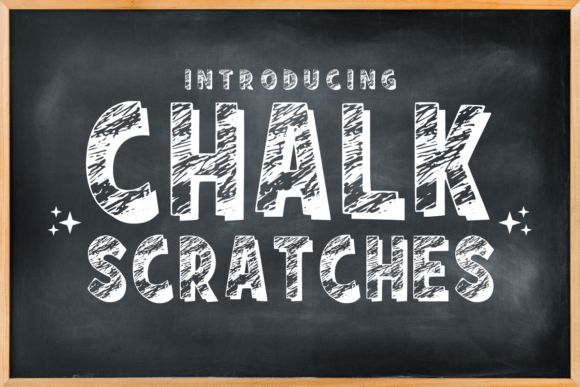
Unleash Your Creativity with the Chalk Scratches Font
Remember those carefree summer days spent scribbling on the blackboard with chalk? The sound of the chalk scratching against the surface, the smell of the dust, and the satisfaction of creating something new and temporary. It’s a feeling that many designers will nostalgically recall when they discover the Chalk Scratches Font.
This unique display font is designed to capture the raw texture of chalk on a blackboard, with heavy strokes and scratchy edges that bring a gritty, school-time vibe to any design. Whether you’re creating posters, cafe menus, classroom decor, event flyers, or social media graphics, the Chalk Scratches Font is a valuable tool in your design arsenal. Its hand-drawn, textured look makes it a fun choice for back-to-school designs, teacher resources, and playful marketing.
Chalk Scratches Font Key Features
- Font Family: Chalk Scratches, a unique and hand-drawn font designed to resemble chalkboard scribbles.
- Unique Characteristics: The Chalk Scratches font features a distressed, hand-drawn look with subtle imperfections and texture, giving it a charming, vintage feel.
Designer Review: Chalk Scratches Font
Overall, I’m impressed with the Chalk Scratches Font, a unique and charming font that’s perfect for adding a touch of whimsy to your designs. ✨ Here are some of its standout features:
- Playful Feel: The Chalk Scratches Font has a fun, carefree vibe that’s reminiscent of handwritten notes on a chalkboard. ✨ It’s perfect for designs that need a touch of personality.
- Versatility: This font is surprisingly versatile, working well in a variety of contexts, from children’s books to advertising campaigns. ✨ It’s a great choice for designers who want to add some visual interest to their projects.
- Legibility: In some cases, the Chalk Scratches Font can be difficult to read, particularly in smaller sizes or at a distance. ⚠️ This may be a concern for designers who need to ensure their text is easily readable.
- Overuse: The font’s unique style can also become repetitive if overused. ⚠️ Designers should be mindful of how they’re using the font to avoid creating a sense of visual fatigue.
Overall, I think the Chalk Scratches Font is a great addition to any designer’s toolkit. With its playful feel and versatility, it’s perfect for adding a touch of whimsy to your designs. Just be mindful of its limitations and use it thoughtfully to get the most out of it.
Tips: Experiment with different text sizes and colors to create a visually appealing design. Use the Chalk Scratches font for titles, headings, and quotes to add a touch of whimsy.
Tips: Use the Chalk Scratches font for creative projects, such as illustrations, graphics, and digital art. Experiment with layer blending modes to achieve unique effects.
Tips: Use the Chalk Scratches font for presentations, reports, and documents that require a creative touch. Experiment with different font sizes and colors to create visual interest.
The Chalk Scratches font is ideal for:
- Children’s educational materials
- Creative projects, such as illustrations and graphics
- Presentation and report titles